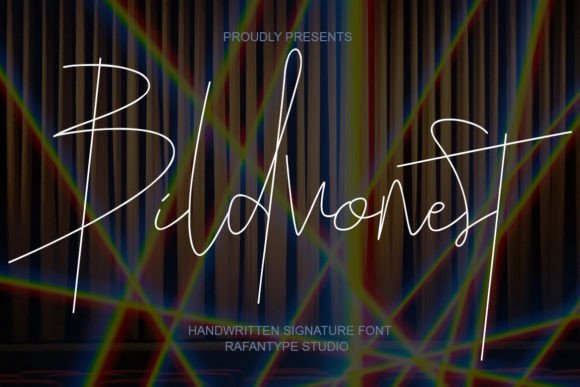
The Designer’s Delight: Unpacking the Elegance of Bildvonest Font
An Honest Review of Bildvonest Font
Bildvonest Font has been a game-changer for my designs, and here’s what I love about it:
- ✨ Delicate and stylish: Bildvonest boasts a beautiful, handwritten aesthetic that’s perfect for projects that require a touch of elegance.
- ✅ Contemporary feel: Despite its calligraphic influences, Bildvonest feels fresh and modern, making it suitable for a wide range of design applications.
- ✅ PUA encoded: The font’s PUA encoding means you can easily access all the glyphs and swashes, giving you plenty of creative freedom.
However, I did notice a few minor quirks:
- 🤔 Limited use in body text: While Bildvonest is stunning in headings and titles, it may not be the best choice for body text due to its delicate nature.
- ⚠️ Requires OpenType features support: To get the most out of Bildvonest, you’ll need to work with software that supports OpenType features, which might be a limitation for some users.
The Story Behind Bildvonest Font
Bildvonest Font was created with the intention of capturing the essence of elegant, modern calligraphy. Its designer aimed to create a font that would be both stylish and versatile, suitable for a wide range of design applications. While the exact story behind the font’s creation is unclear, it’s evident that Bildvonest was crafted with love and attention to detail.
| Font Name | Bildvonest Font |
| Author | rafantypestudio |
Q: Is Bildvonest Font suitable for body text?
A: While Bildvonest is stunning in headings and titles, it may not be the best choice for body text due to its delicate nature. Consider using a clearer font for longer blocks of text.